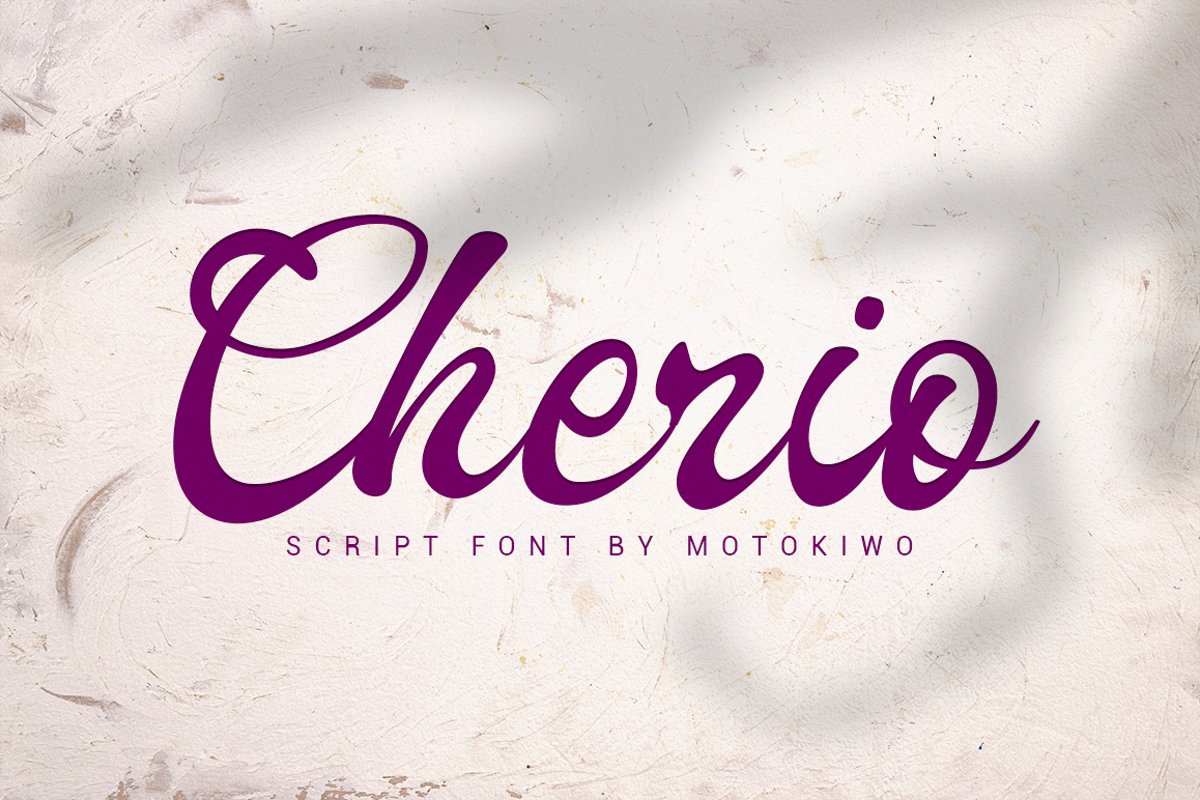
Cherio
Cherio is handcrafted script font that recommended for logo, card design, branding, poster, etc. It has smooth edge and relaxing flow.
• Numeral & Punctuation
• Standard latin Multilingual